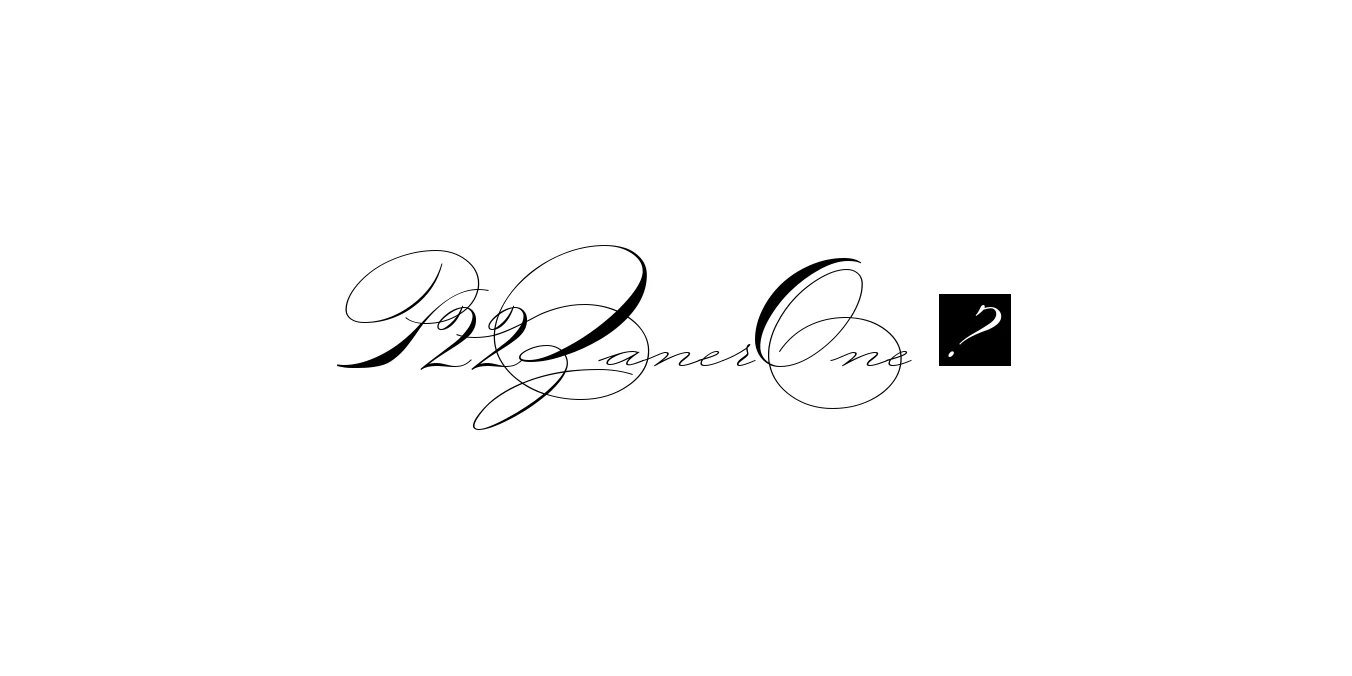
P22ZanerOne ☞
Designed by Paul Antonio
P22 Zaner One is a sophisticated part of the P22 Zaner set, a font family meticulously based on the ornamental penmanship of Charles Paxton Zaner. Zaner was a legendary figure in the American penmanship movement during the late 19th and early 20th centuries. This font specifically captures the delicate balance between hairline strokes and controlled swells that defined the Golden Age of Ornamental Penmanship, providing a digital window into a bygone era of hand-rendered elegance.
The typeface is characterized by its Spencerian roots and Copperplate-inspired flourishes, making it an essential tool for designers seeking historical accuracy and high-end formal aesthetics. Unlike standard digital scripts, P22 Zaner One maintains the organic flow of a master penman's hand, ensuring that every character looks like it was carefully crafted with a flexible nib and ink on parchment.
P22ZanerOne ☞ Best Uses
Exquisite for invitations, save-the-date cards, and formal envelope addressing.
Ideal for high-end fashion, perfumes, and premium boutique identity systems.
Perfect for diplomas, awards, and official documents requiring a sense of prestige.
Used for drop caps or short decorative titles in luxury magazines and historical books.